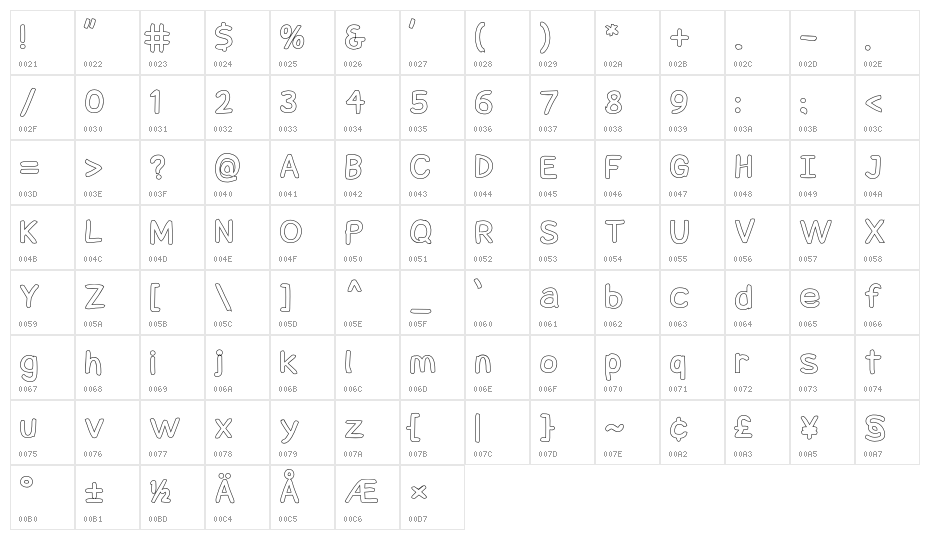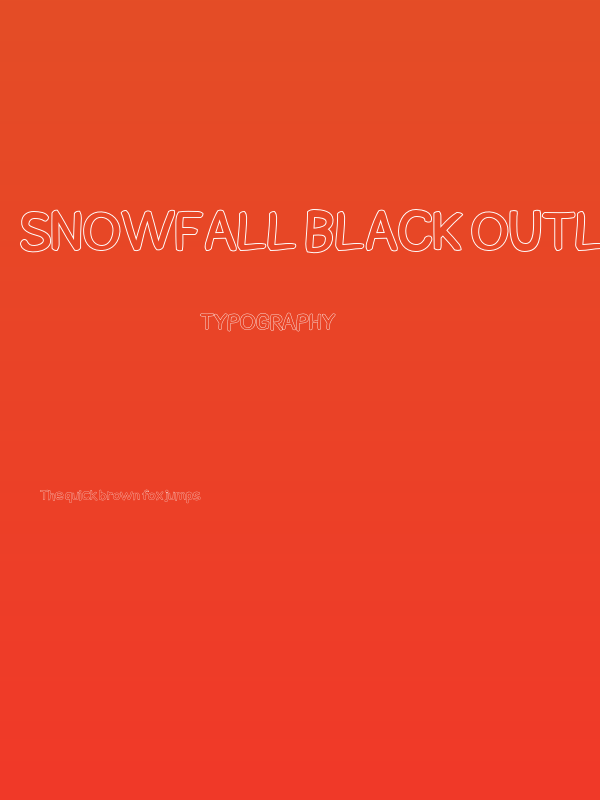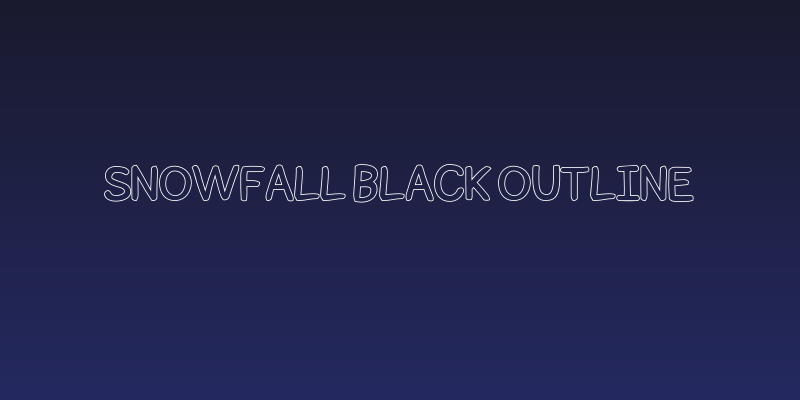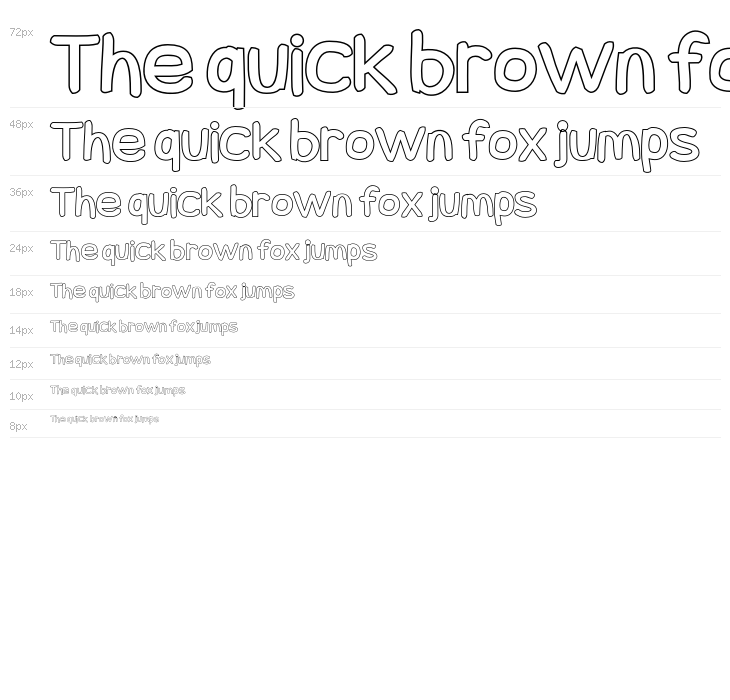
Snowfall Black Outline Font
Snowfall Black Outline Description
This font features a playful and bold outline style, characterized by its thick, rounded edges and hollow centers. The uppercase and lowercase letters maintain a consistent width, giving the font a uniform appearance. The numbers and special characters follow the same design principles, ensuring cohesion across all elements. The font's outline design adds a whimsical and fun touch, making it ideal for creative projects. Its legibility is maintained despite the decorative style, making it suitable for both headlines and short text blocks.